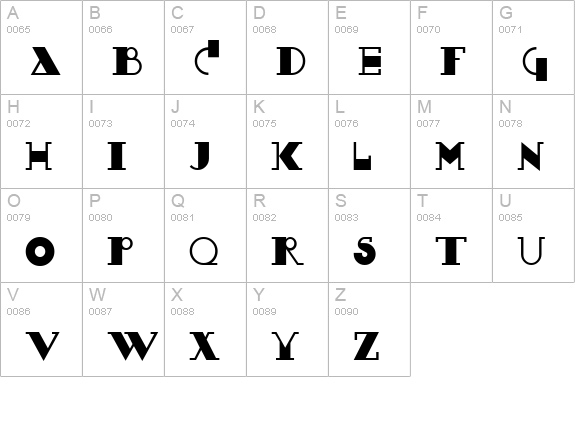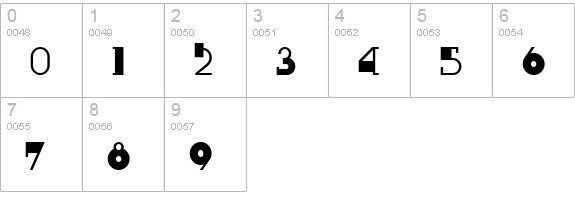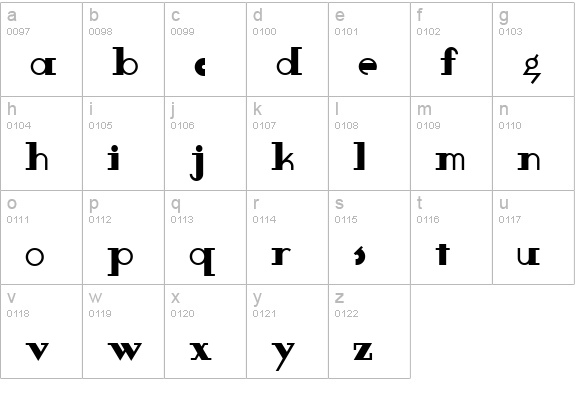
Boeuf Au Joost NF Font Details
Boeuf Au Joost NF font is a beautifully crafted typeface that exudes elegance and sophistication. Its delicate strokes and graceful curves make it perfect for adding a touch of class to any design project. This font is versatile and can be used for a variety of purposes, from wedding invitations to branding materials. The best part about Boeuf Au Joost NF font is that it is completely free to download at FontsMarket.com. This means you can easily access this stunning font without any cost, making it a valuable addition to your font collection. Whether you're a designer looking to elevate your projects or a business owner wanting to create a memorable brand identity, Boeuf Au Joost NF font is a fantastic choice that won't break the bank. Don't miss out on the opportunity to enhance your designs with this exquisite font - download Boeuf Au Joost NF today and let your creativity shine!